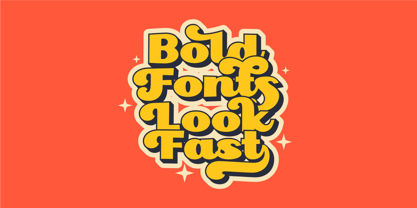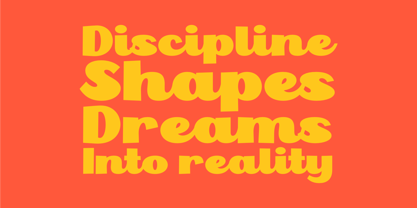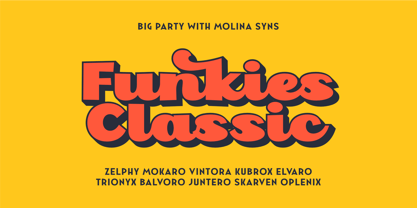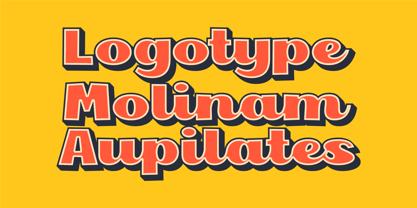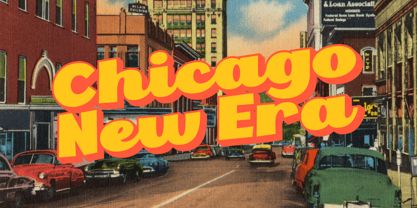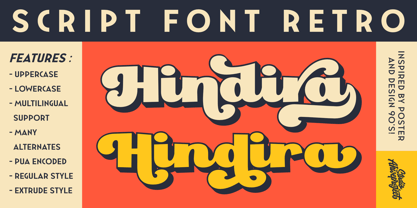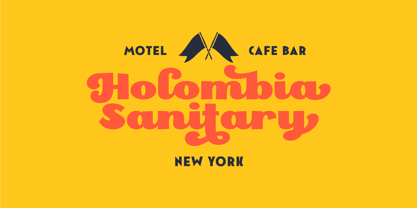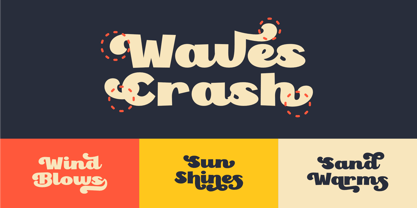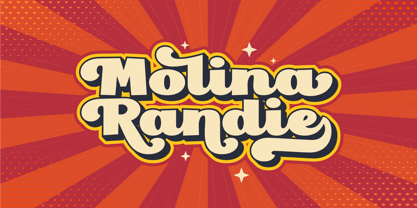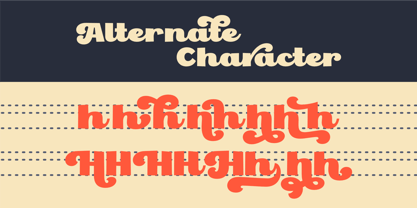
Hindira
by ahweproject
The Hindira Font Family was designed by Dida Ahluddin and published by ahweproject. Hindira contains 2 styles and family package options.
Get ready to fall in love with Hindira – a retro script font inspired by 90s posters and design vibes! With chunky, playful, and full-of-character letterforms, Hindira is here to make your projects stand out and shine. Why You’ll Love Hindira: – Uppercase & lowercase letters – Multilingual support – Tons of stylish alternates – PUA Encoded – Comes in two styles: Regular & Extrude for that cool 3D look Perfect for: – Retro posters & merchandise – Unique, eye-catching logos – YouTube thumbnails & social media content – Vintage-style packaging With two bold styles, Hindira isn’t just a font – it’s your creative tool to bring retro charm and unforgettable character into any design. Add a touch of nostalgic flair to your work with Hindira today! Happy Design!